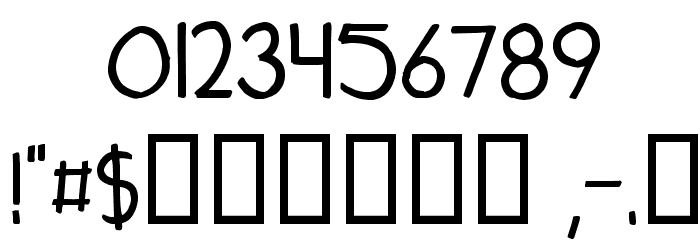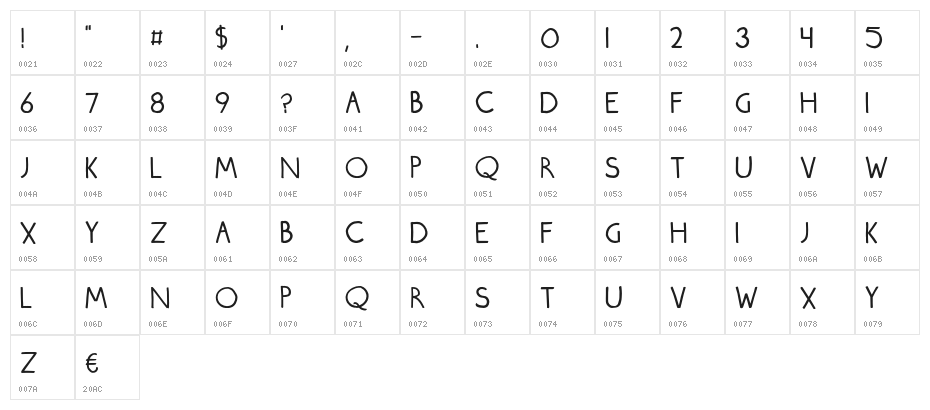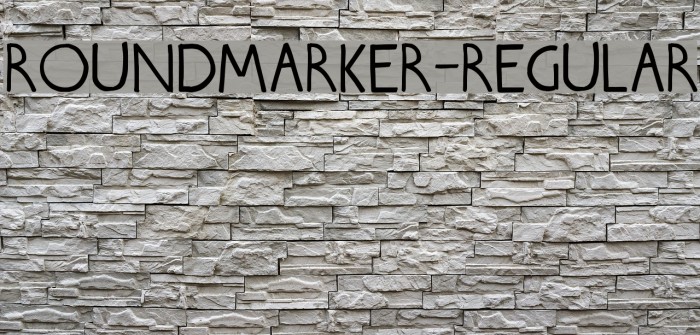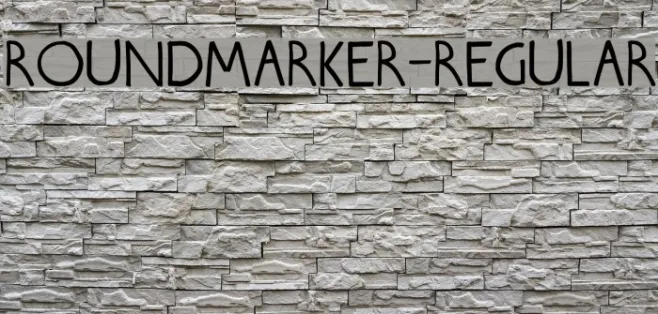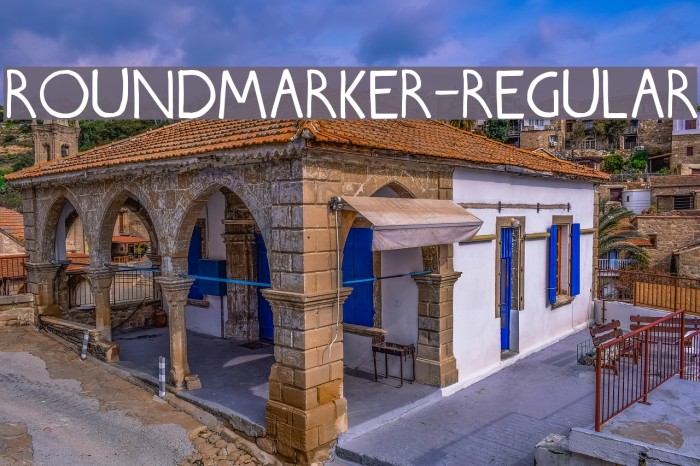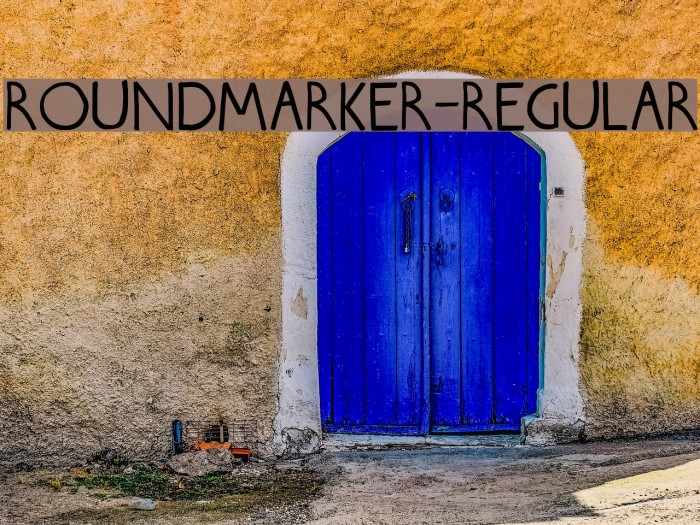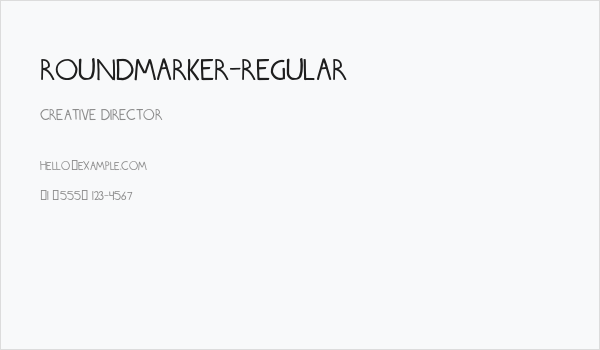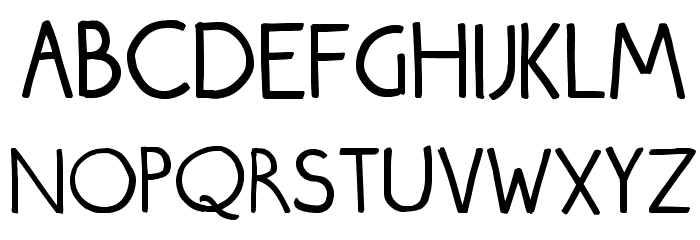
Roundmarker-Regular Font
Roundmarker-Regular Description
This font features a playful and rounded style with a hand-drawn appearance. The letters are characterized by their smooth curves and consistent stroke width, giving them a friendly and approachable look. The uppercase and lowercase letters maintain a uniform height, creating a cohesive and balanced appearance. The numerals are clear and easy to read, matching the overall style of the alphabet. Special characters are included, maintaining the same rounded and informal aesthetic. This font is well-suited for projects that require a casual and inviting tone.
| Use Case | Headlines, Logos, Informal text |
| Proposed Projects | Ideal for children's books, greeting cards, playful branding, and casual invitations. |